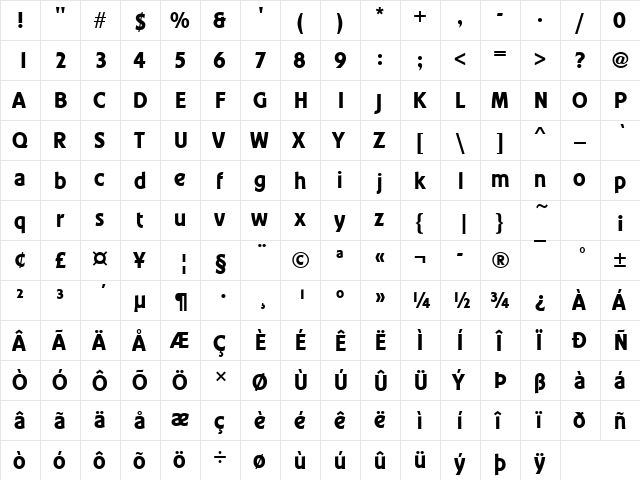
URWColetteD Regular
Design Context for URWColetteD Typeface
URWColetteD is a composed and adaptable typeface that performs quietly and consistently across a wide range of design contexts.
Pro Tip: Use URWColetteD in both headline and body roles to test its range before committing to a single application.